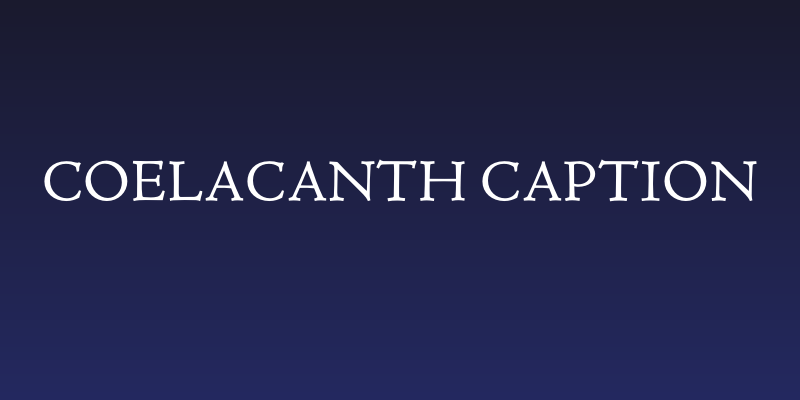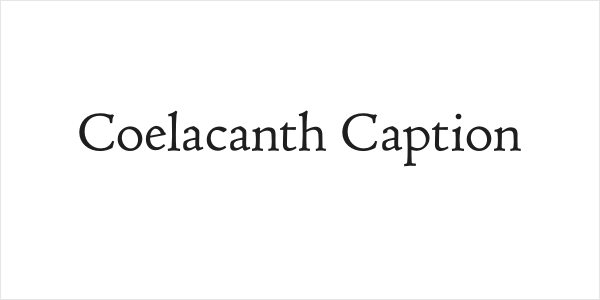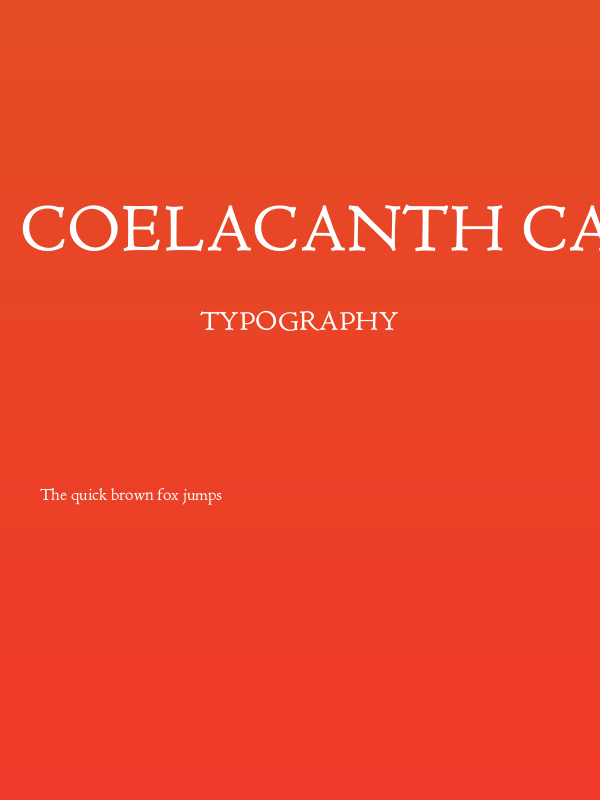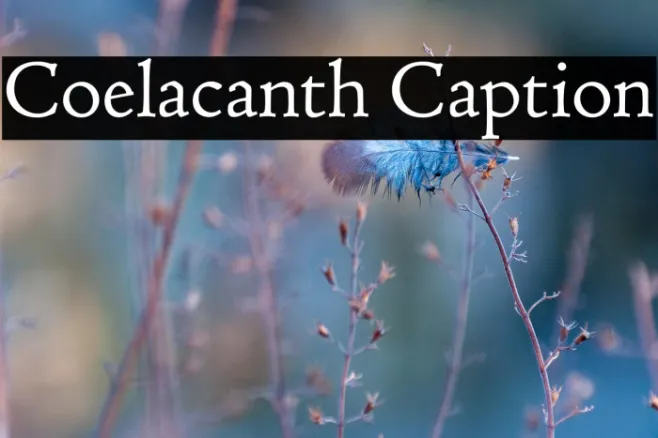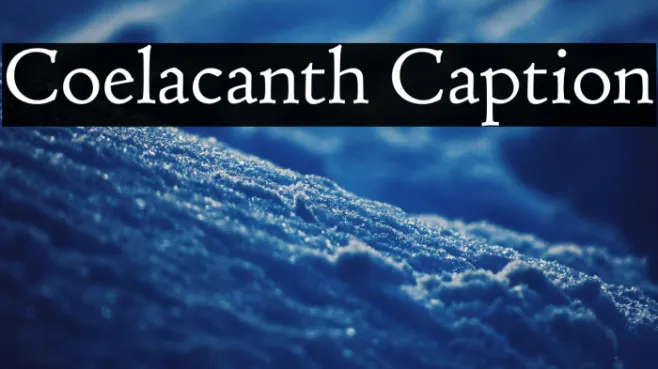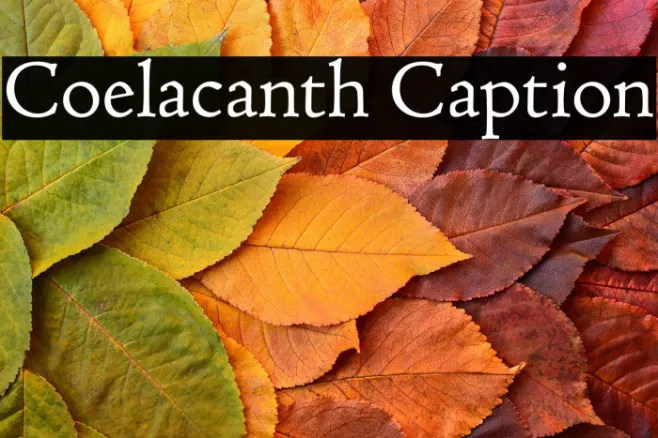
Coelacanth Caption Font
Coelacanth Caption Description
This font features a classic serif style with a slightly irregular and organic appearance, reminiscent of historical typefaces. The serifs are pronounced and slightly curved, giving the letters a distinctive and elegant look. The uppercase letters are bold and commanding, while the lowercase letters maintain a consistent flow with a touch of whimsy. The numerals are well-proportioned and align seamlessly with the overall design. Special characters are crafted with the same attention to detail, ensuring a cohesive aesthetic throughout. This font exudes a sense of tradition and sophistication, making it suitable for projects that require a touch of elegance and historical charm.